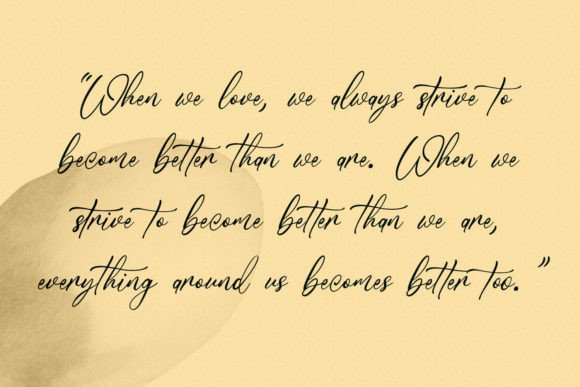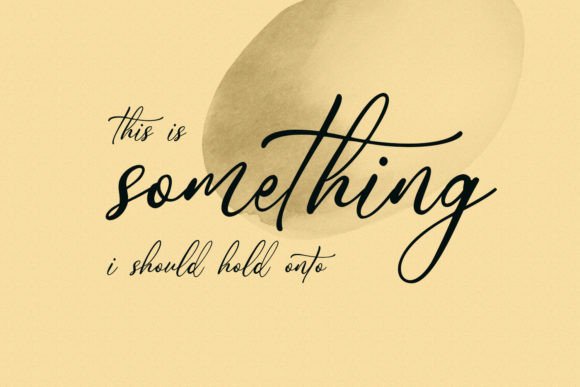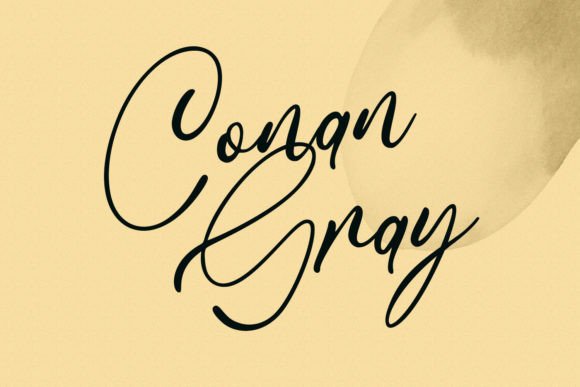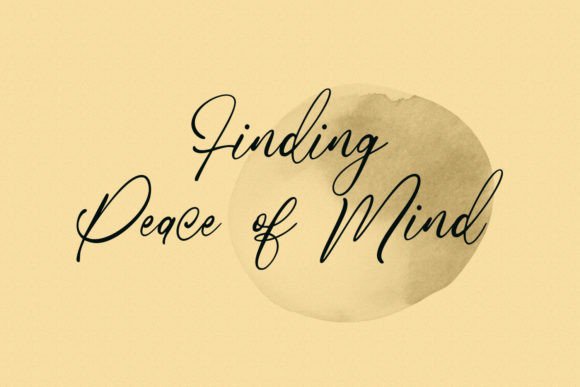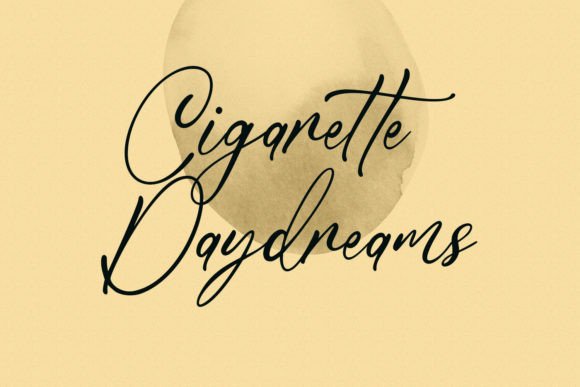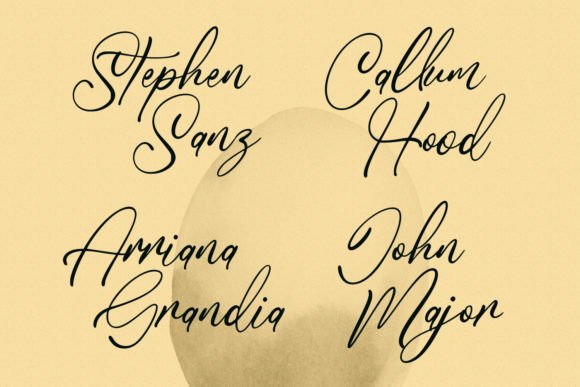
Introducing Closterian Font: Elevate Your Designs with Elegant Script
In the realm of typography, few fonts manage to strike a balance between classic elegance and modern flair. Closterian Font is one such exceptional typeface that brings a touch of sophistication and contemporary style to any design project. Inspired by the timeless beauty of classic calligraphy, Closterian is an elegant script font that embodies both impeccable form and a fresh, modern atmosphere.
The Inspiration Behind Closterian
Closterian draws its inspiration from the rich heritage of traditional calligraphy, where every stroke and curve is a testament to the art of beautiful writing. However, unlike fonts that merely mimic the past, Closterian infuses classic elegance with a contemporary twist. This blend of old and new results in a font that feels both nostalgic and refreshingly modern.
One of the standout features of Closterian is its balanced design. The font is carefully crafted so that its strokes are not too thin or too thick, creating a harmonious visual flow that is pleasing to the eye. This balance ensures that Closterian remains legible and aesthetically appealing, whether it’s used in headings, body text, or decorative pieces.
Variety is another key aspect of Closterian’s design. The font includes a range of characters and ligatures, allowing designers to create rich, textured compositions that add depth to any project. Whether you’re working on a branding campaign, a website, or a print project, Closterian offers the versatility to adapt to different contexts and styles.
Perfect for a Range of Projects
Closterian’s elegant and versatile nature makes it suitable for a wide array of design projects. Here are some of the areas where Closterian can truly shine:
- Branding and Logotypes: Use Closterian to create memorable logos and brand identities that exude sophistication and refinement.
- Web Design: Enhance your website’s typography with Closterian, adding a touch of elegance to your digital presence.
- Print Materials: From luxury brochures and high-end business cards to elegant invitations and event branding, Closterian can elevate any printed material.
- Packaging: Add a touch of class to your product packaging with Closterian, making your products stand out on store shelves.
Why Choose Closterian?
In a market flooded with generic fonts, Closterian stands out for several reasons:
- Unique Elegance: Closterian offers a unique blend of classic calligraphy and modern design, making it a rare find in the world of typography.
- Versatility: Its balanced and varied design makes it suitable for a wide range of applications, from digital interfaces to print materials.
- Legibility: Despite its elegant nature, Closterian remains highly legible, ensuring that your message is communicated clearly and effectively.
Closterian Font is more than just a typeface; it’s a design tool that can transform your projects with its elegant script and contemporary flair. Whether you’re a professional designer or a crafty DIY enthusiast, Closterian offers the perfect blend of classic beauty and modern style to elevate your designs. With its impeccable form, balanced design, and versatile nature, Closterian is poised to become a favorite in your typography arsenal. Discover the beauty and potential of Closterian and take your design work to new heights of elegance and sophistication.